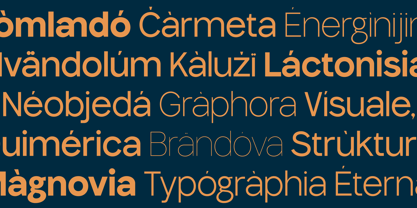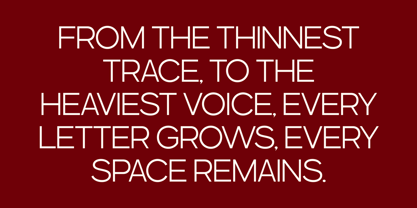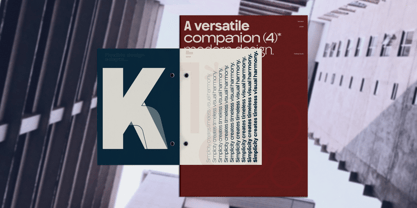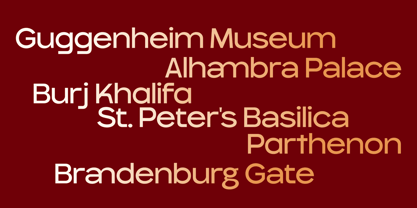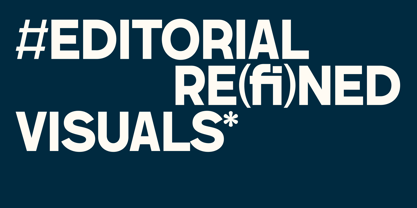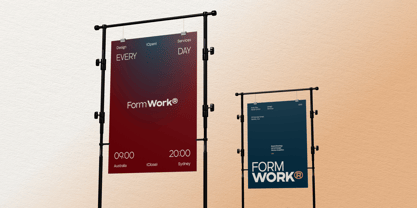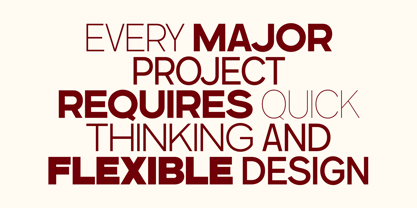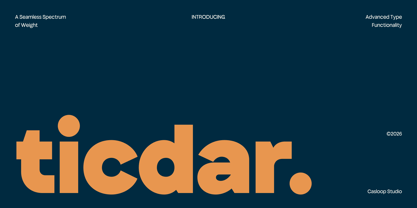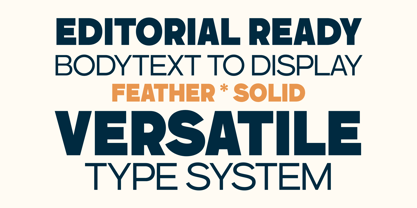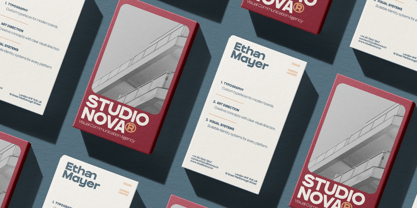
Ticdar
La familia tipográfica Ticdar fue diseñada por Wantara Putra y publicada por Casloop Studio. Ticdar contiene 18 estilos y opciones de paquete familiar. Más información sobre esta familia
Ticdar is a versatile editorial and branding typeface designed as a reliable workhorse for visual identity systems, headlines, body text, and display applications. Its defining characters A, G, M, R, S, and W establish a controlled visual identity through balanced proportions, assertive terminals, and sharply defined counters that maintain clarity across different sizes and weights. With 18 weights ranging from Thin to Black, including matching Wide styles, Ticdar offers a flexible typographic system that adapts effortlessly from compact body copy to expressive headlines, making it a strong choice for editorial design, brand identity, packaging, campaigns, and modern visual communication. Recommended pairing with Inter, Manrope, Source Sans 3, Helvetica Neue, Univers, Avenir